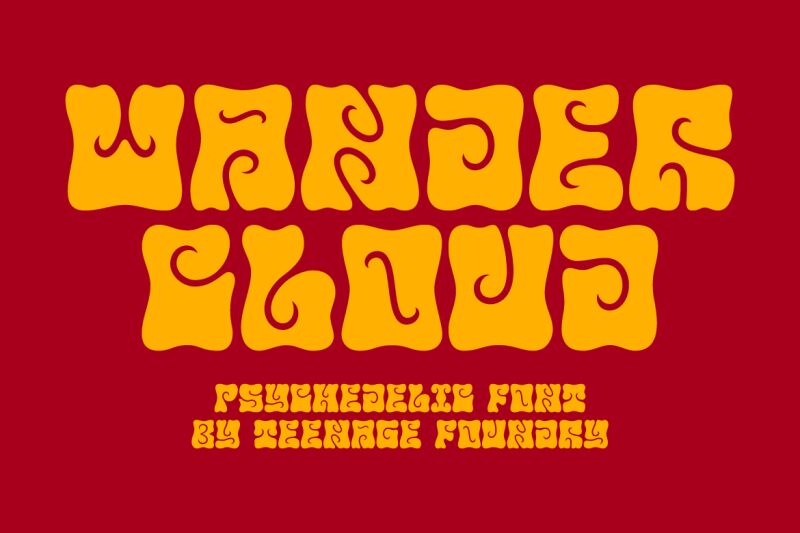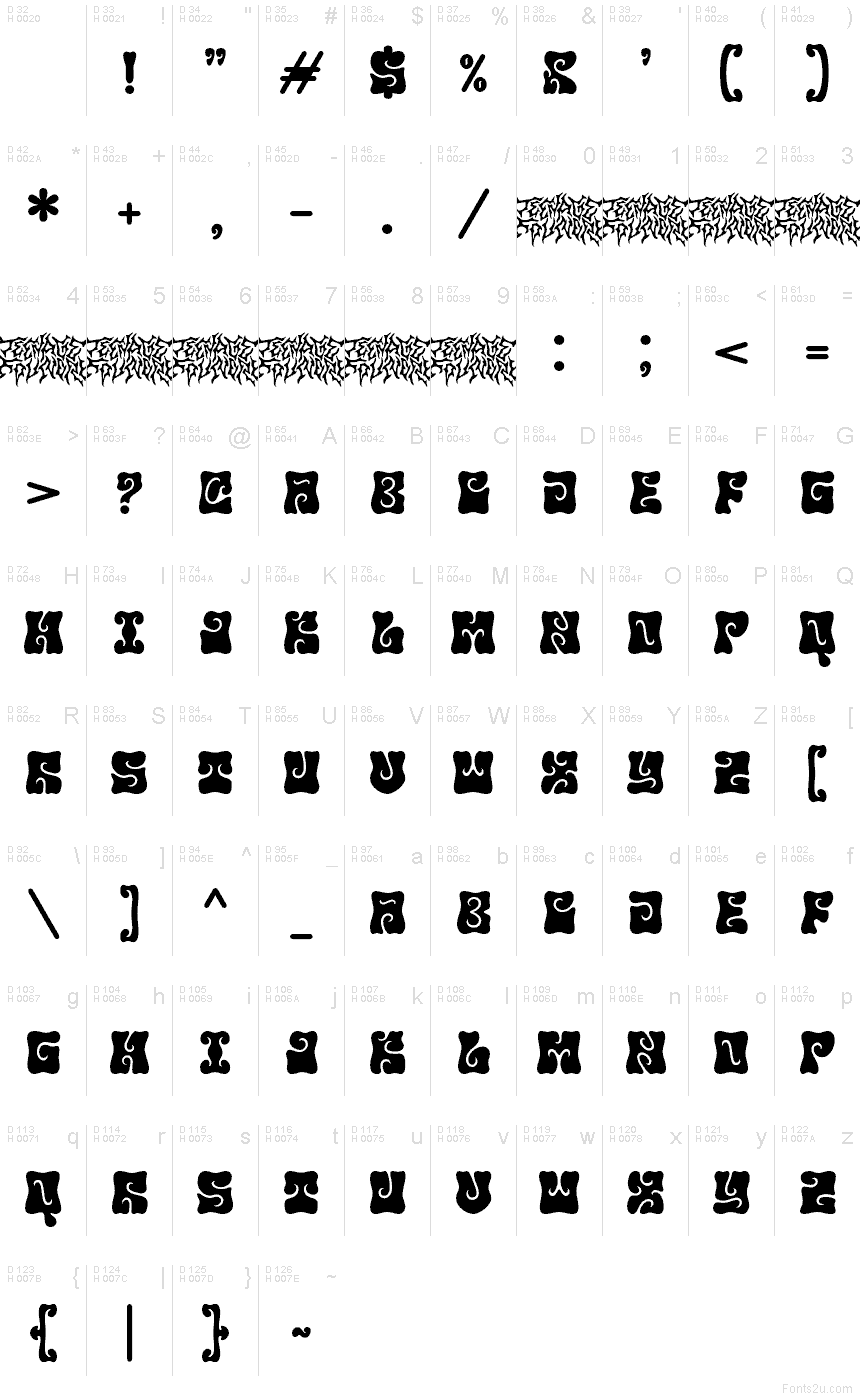
TFWanderCloudDEMO-Regular
TF Wander Cloud font by Teenage Foundry is a free groovy display typeface that looks like bold ink blocks filled with swirling, windy shapes. Each letter feels like a chunky cloud carved by hand, with creamy white curls and loops dancing inside dense black forms. The rhythm is slow and wavy, creating a trippy, hypnotic texture that instantly pulls focus in a layout.
Using TF Wander Cloud, you can give festival posters, album covers, retro event branding, merch graphics, packaging, and bold social media titles a thick, tactile, 70s-tinged vibe. This free font loves big sizes where its internal swirls can breathe; pair it with a clean geometric sans for body copy to balance all that juicy, inky movement.